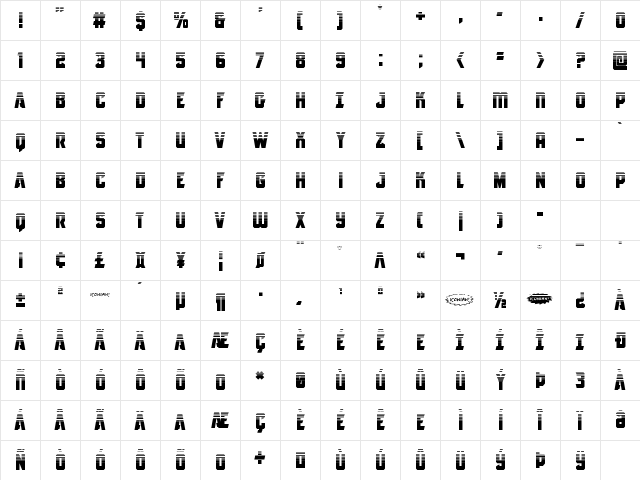
Antilles Halftone Regular
Design Context for Antilles Halftone
Antilles Halftone is a composed and adaptable typeface that performs quietly and consistently across a wide range of design contexts.